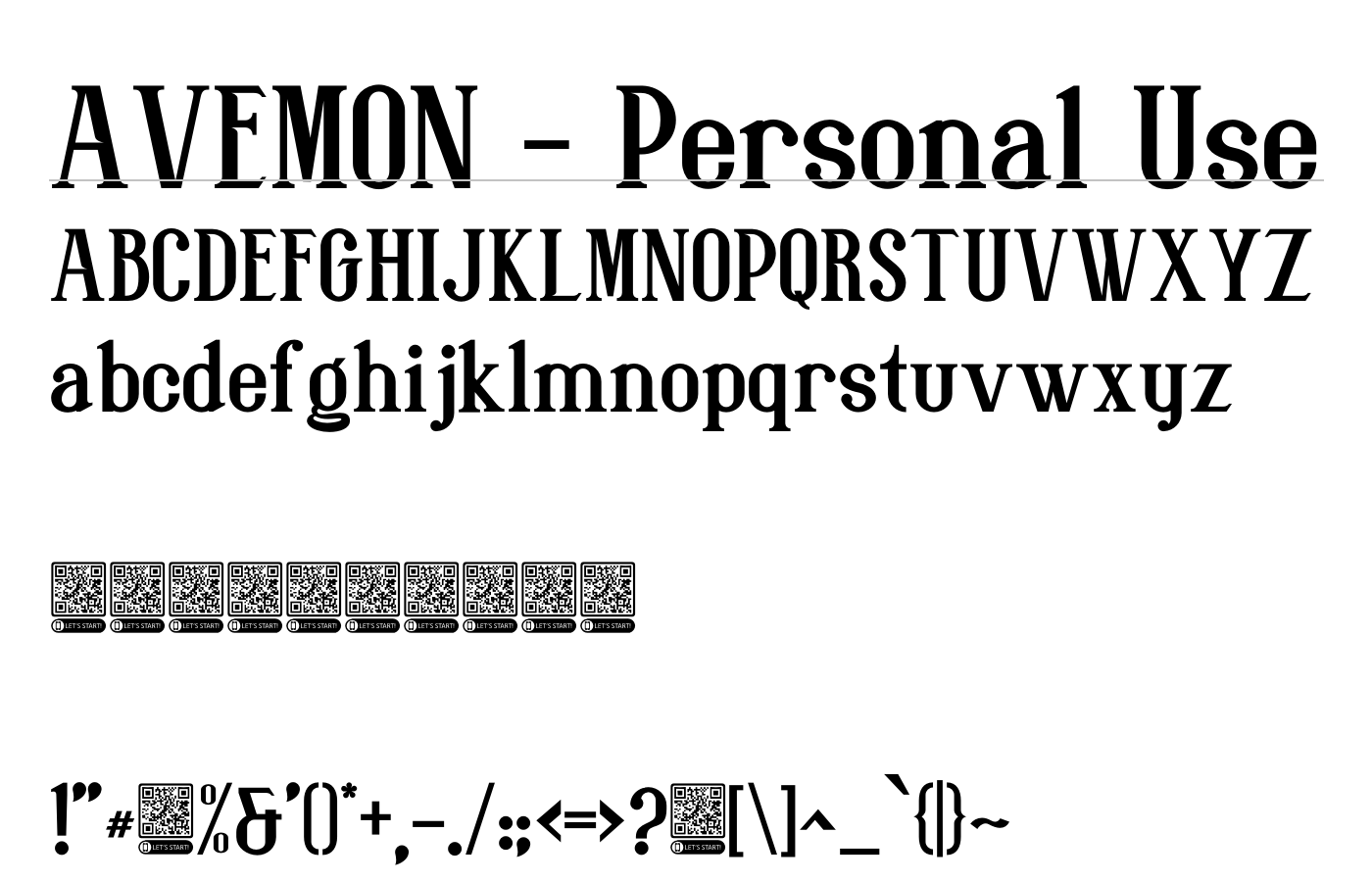
AVEMON is a distinctive serif font with a strong, elegant presence, featuring tall, condensed letterforms and moderate stroke contrast that give it a refined yet bold character. Its sharp, bracketed serifs and classic details create a timeless, sophisticated feel, making it ideal for fashion branding, editorial headlines, and luxury packaging where a touch of vintage charm and authority is desired. This font works well in display settings, delivering clarity and style in both uppercase and lowercase text.
AVEMON - Personal Use Font
About AVEMON - Personal Use Font
| Font family | AVEMON - Personal Use Font |
| Designer | Designed by Sarwo Edhi Prayitno |